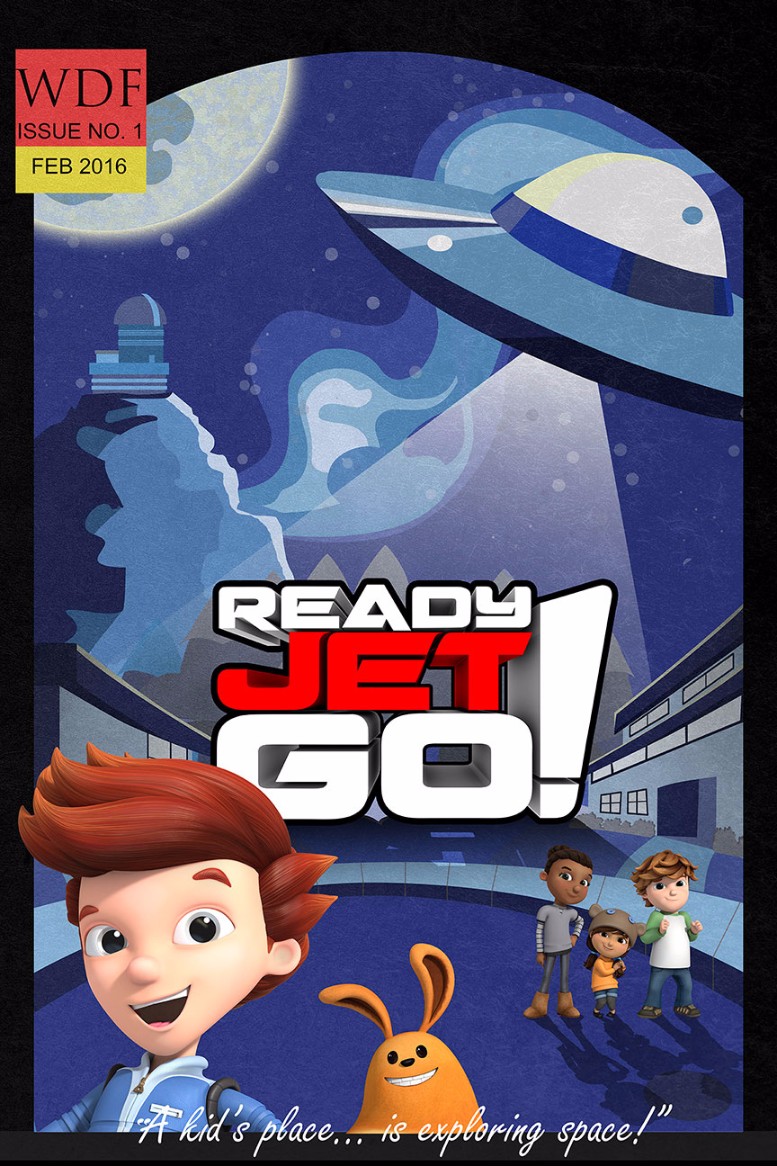
Ready Jet Go Font
AnimationReady Jet Go! is an American-Canadian animated television series created by Craig Bartlett. The series follows the adventures of a group of young friends who are fascinated by space and science, and their encounters with a friendly alien named Jet Propulsion.
Quark Storm Regular is the font used for the Ready Jet Go show's logo. It is a 17-style font family with a futuristic appearance created by Iconian Fonts. The font family is free for personal use and you can download it for free in the Fonts Used Section.